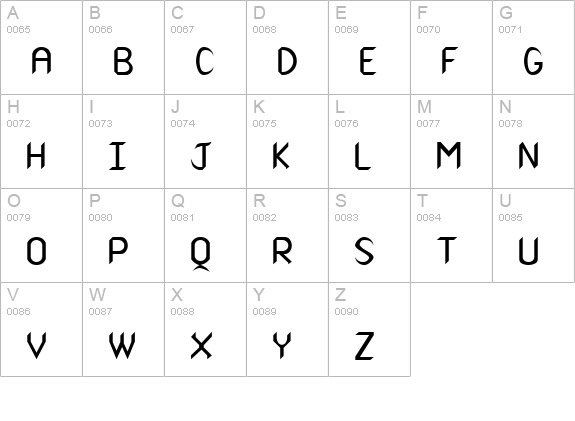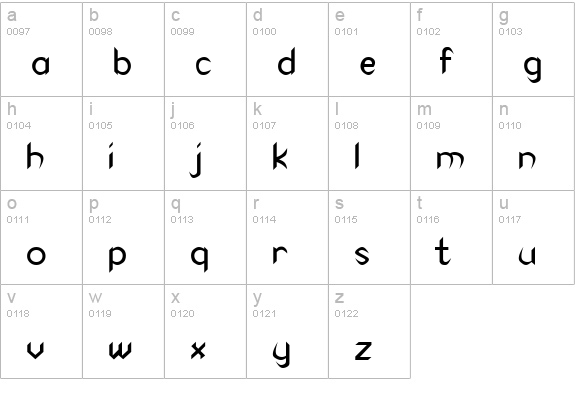
Introducing Shimmy font, a whimsical and playful typeface that is sure to add a touch of charm to any project. With its unique curves and stylish flair, Shimmy is perfect for a wide range of design applications, from branding to invitations to social media graphics. This delightful font is available for free download at FontsMarket.com, making it easily accessible for all your creative needs. Let Shimmy bring a sense of fun and personality to your designs today!